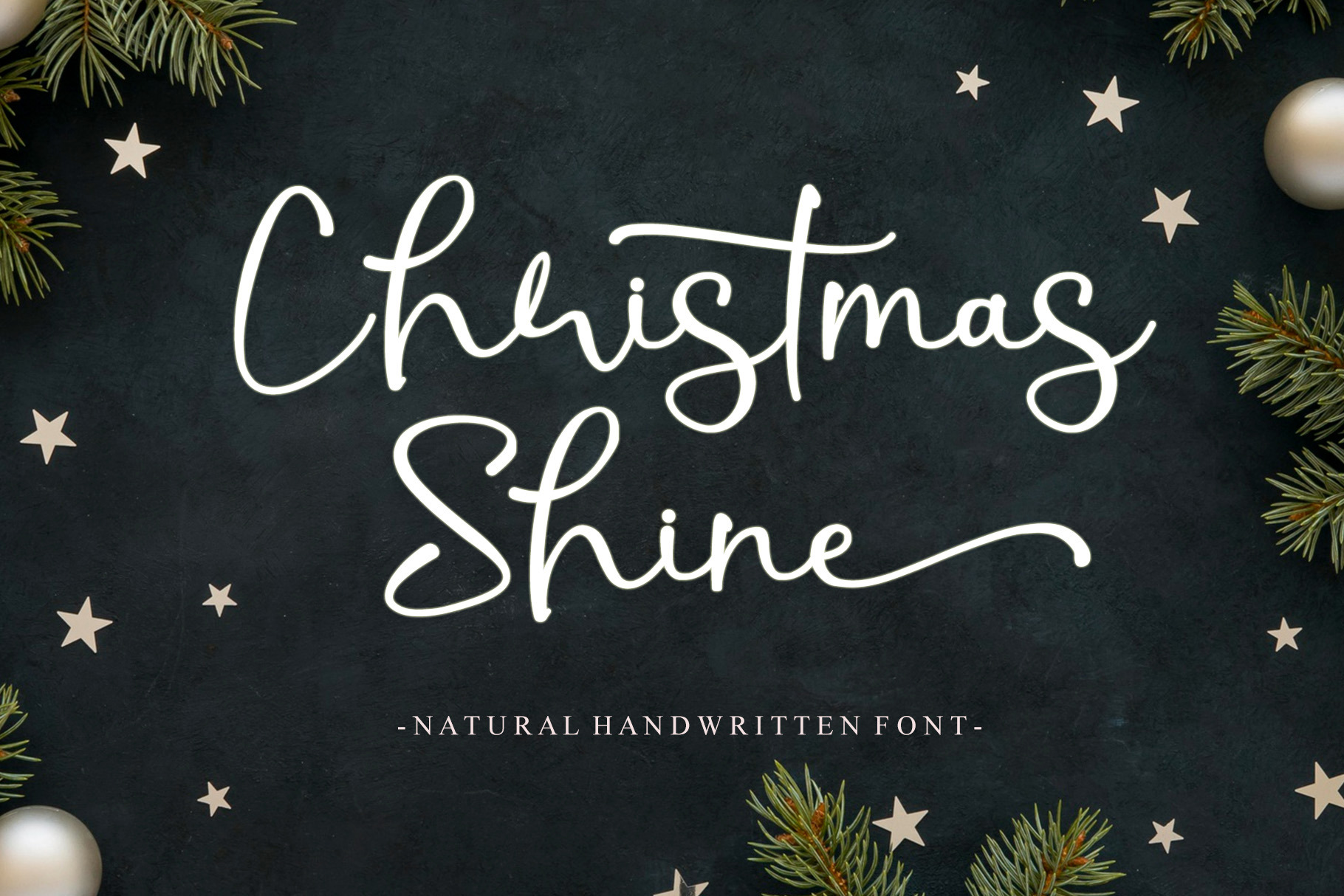
Christmas Shine - Handwritten Font
Christmas Shine is a beautiful and refined script font. It has a classy, elegant, and modern look that you can use for logos, branding, invitations, stationery, wedding designs, social media posts, and much more!